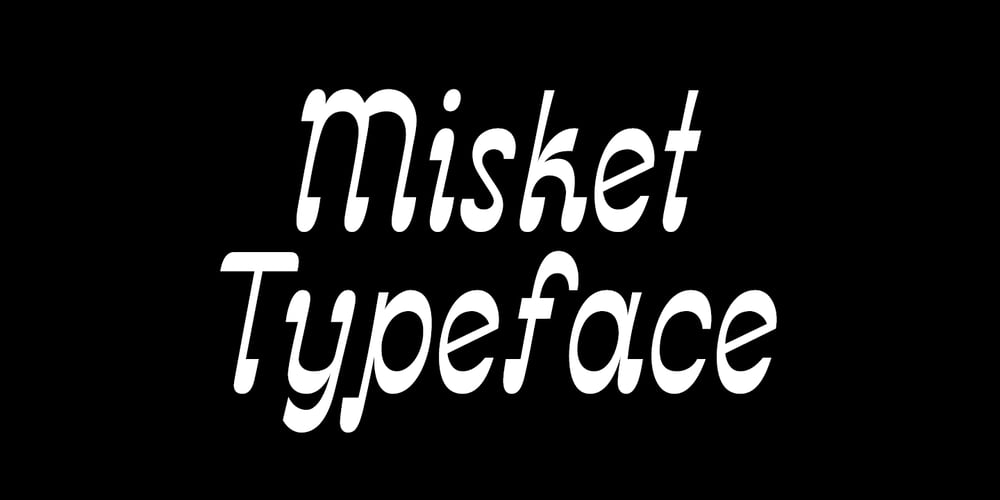
Misket Font Family was designed by Altay Dagistan and published by Altay. Misket contains 1 styles and family package options. Misket is a display typeface designed by Altay Dagistan. The glyphs were drawn one by one by hand, using traditional calligraphy methods. The font features a modulation called “reversed contrast”. Instead of the stems being thicker than the horizontals like in most typefaces, the contrast is reversed so, the stems are much thinner than the horizontals.